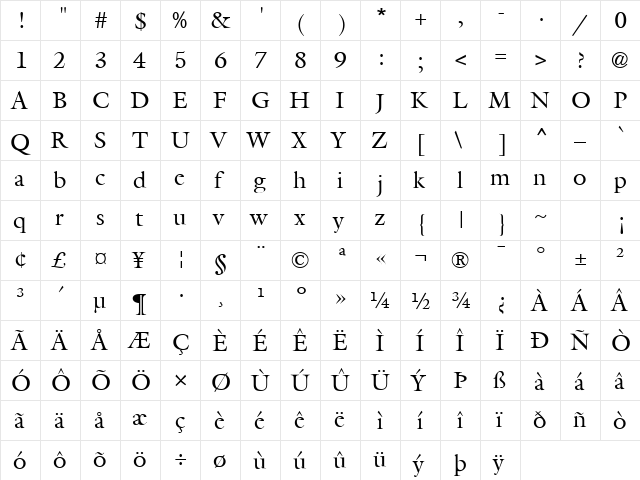
FZ ROMAN 25 Normal
Design Context for FZ ROMAN 25 Typeface
FZ ROMAN 25 is a composed and adaptable typeface that performs quietly and consistently across a wide range of design contexts.